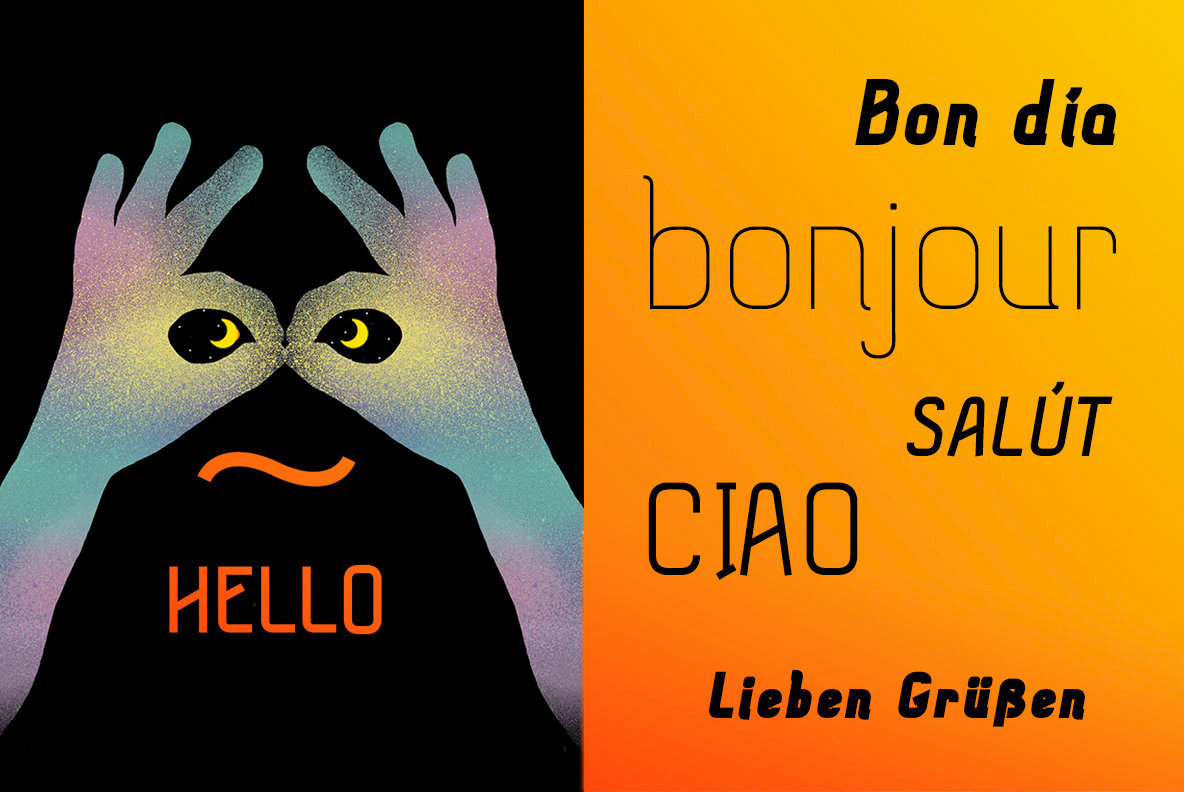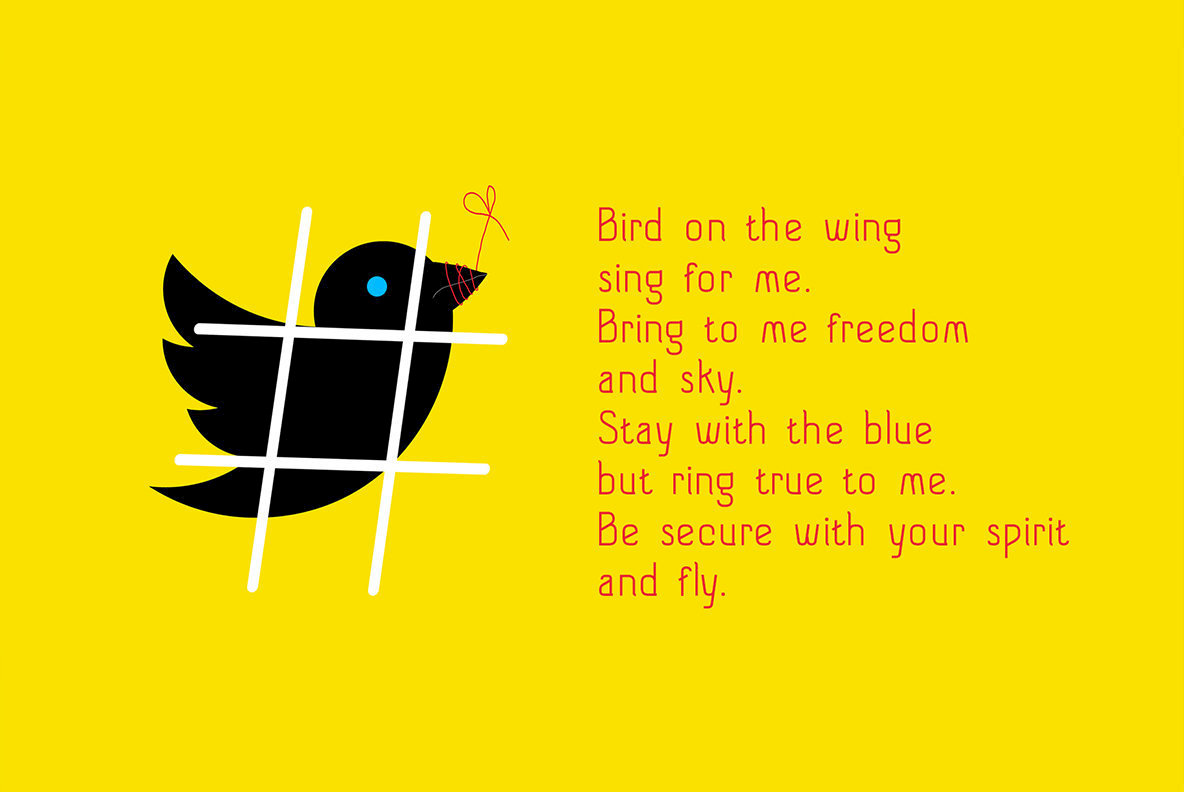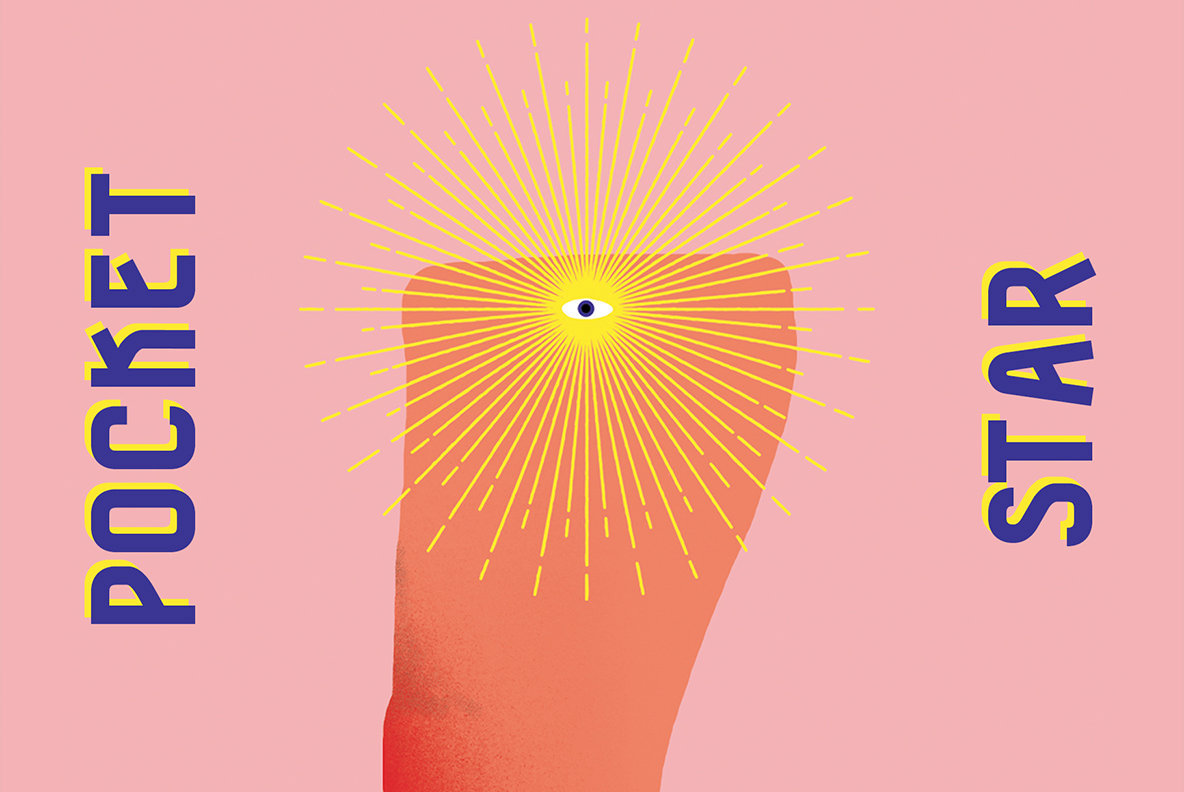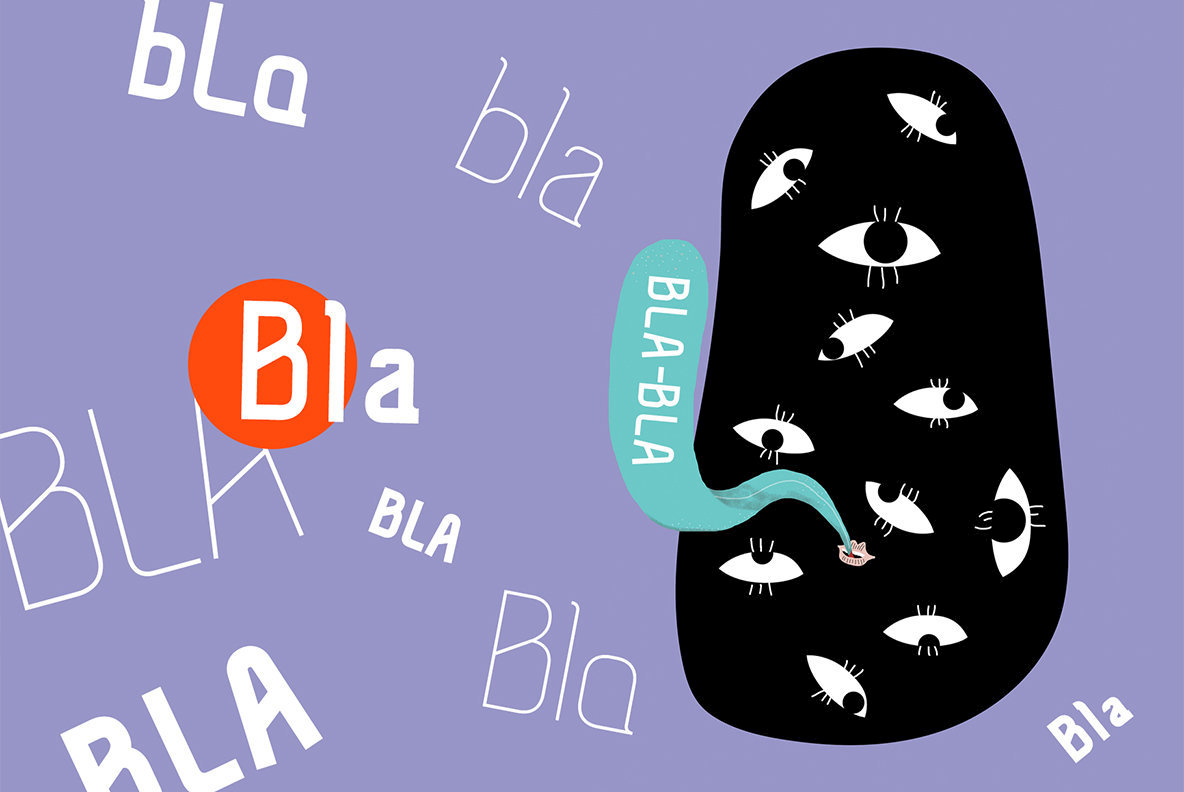
Tilda Font
Embrace the versatility of the Tilda sans serif typeface. Designed to seamlessly fit into various design tasks, from extensive text displays to captivating titles, Tilda's adaptability makes it a staple for everyday use.Tilda Sans: Versatile Typeface for Every Occasion